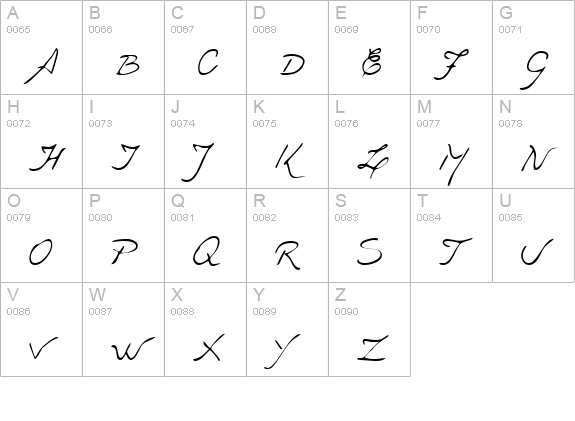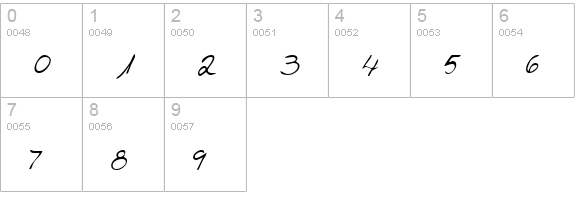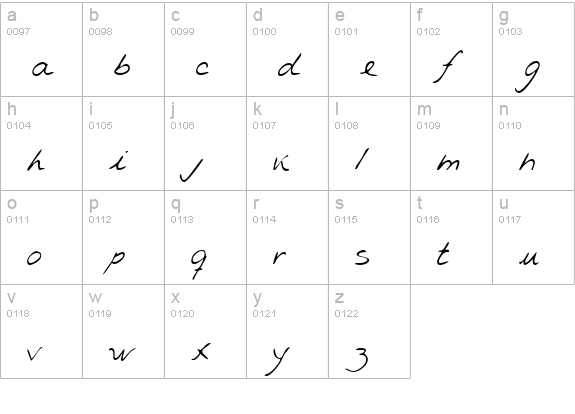
RachelsHand Regular Font Details
RachelsHand Regular is the standard, neutral variant in the RachelsHand typeface family \xE2\x80\x94 well suited to general body text, paragraphs, and standard typographic work.
RachelsHand Regular font is a charming and versatile typeface that exudes a sense of warmth and friendliness. With its handwritten aesthetic and delicate strokes, this font adds a personal touch to any design project. Whether you're creating invitations, greeting cards, or even branding materials, RachelsHand Regular is the perfect choice to infuse your creations with a touch of elegance and uniqueness. One of the best things about RachelsHand Regular font is that it is free! Yes, you read that right. This beautiful font is freely available to download at FontsMarket.com. You can easily access this font and start using it in your projects without any cost. It's a fantastic opportunity to enhance your designs without breaking the bank. RachelsHand Regular font offers a wide range of characters, including uppercase and lowercase letters, numbers, punctuation marks, and special characters. This expansive character set ensures that you have all the tools you need to bring your creative vision to life. The fluid and organic nature of this font make it perfect for adding a personal touch to wedding invitations, handwritten notes, and even social media graphics. Whether you're a professional designer or a hobbyist, RachelsHand Regular font is a must-have addition to your font collection. Its versatility and elegance make it suitable for various design projects, from print to digital. So why wait? Head over to FontsMarket.com and download RachelsHand Regular font today to add a touch of personalization and style to your designs.